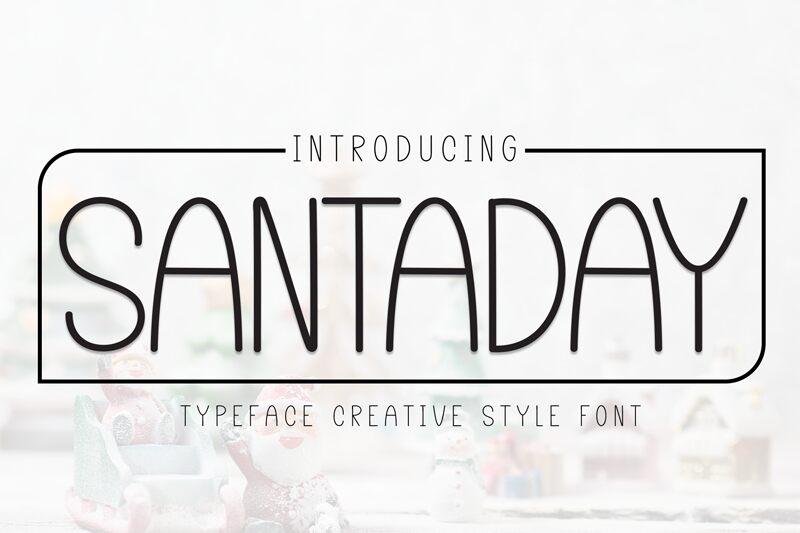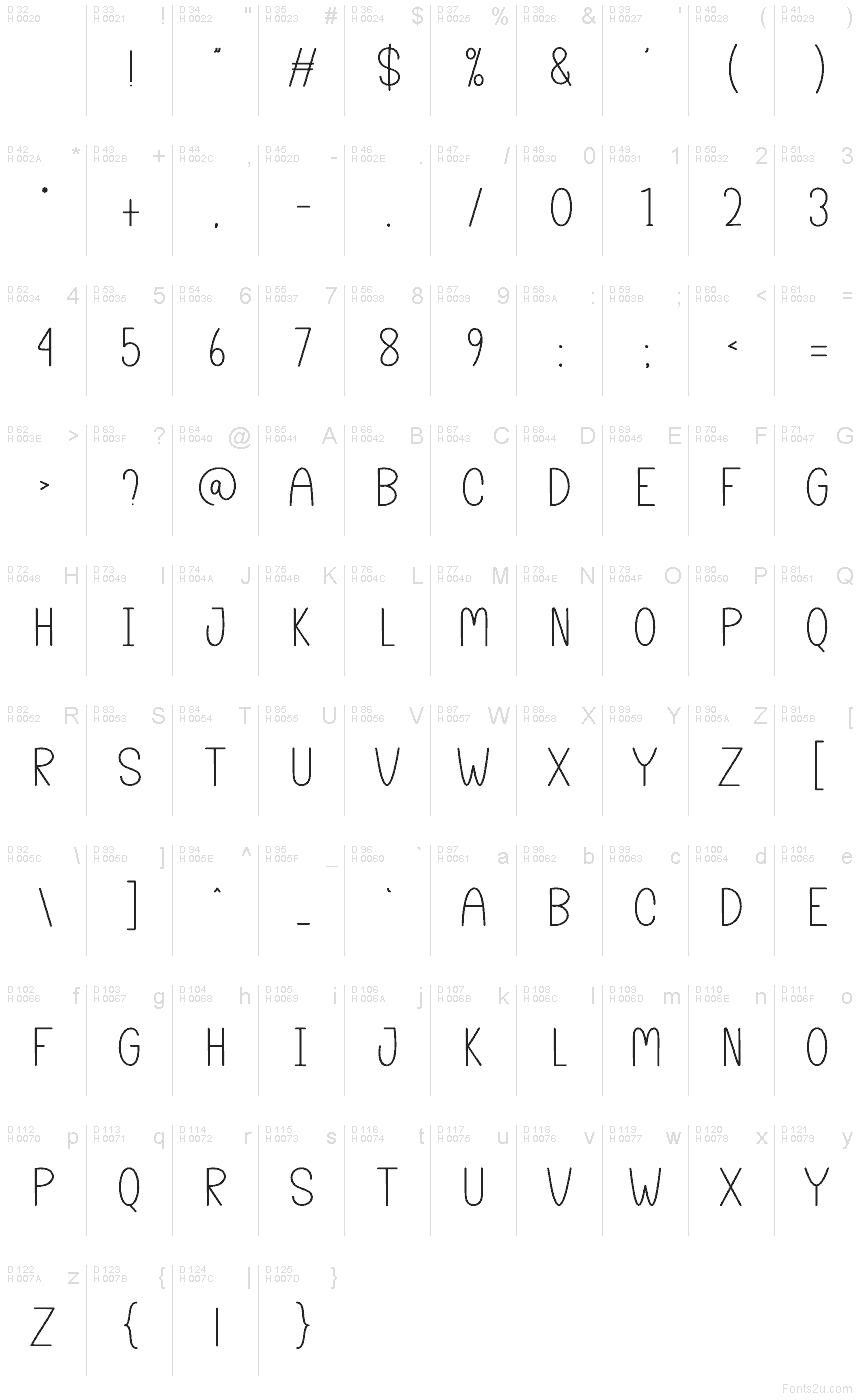
Santaday
Santaday font by Andi Moz is a free handwritten font with tall, narrow letters that feel like they’ve been traced in smooth ink on crisp paper. The strokes are even and clean, giving it a friendly, relaxed vibe without getting messy or childish. Rounded corners soften each character, so the overall look is approachable and light, like a cheerful note taped to a gift.
Using Santaday, you can bring a cozy, festive touch to greeting cards, holiday posters, product tags, kids’ book covers, party invitations, and social media graphics. This free font shines when set big and airy, letting the skinny vertical rhythm breathe. Pair Santaday with a simple geometric sans serif for body text to keep your layouts clear while the handwritten title does the warm, personal storytelling.